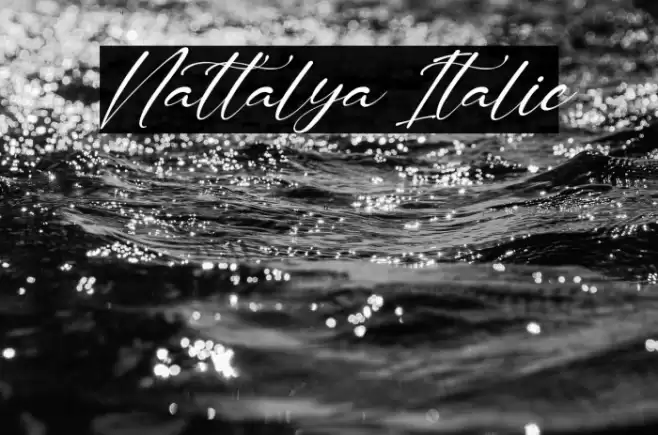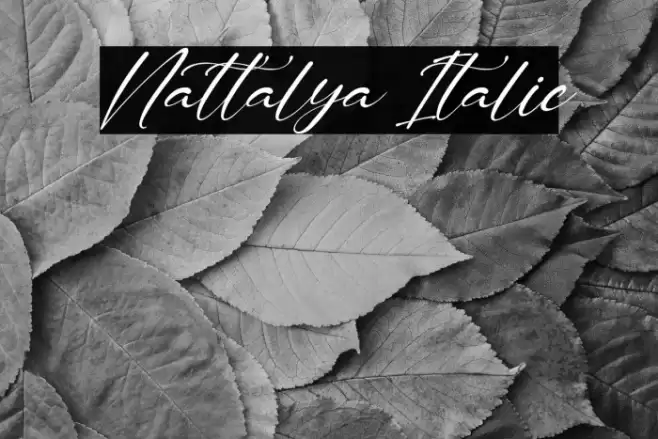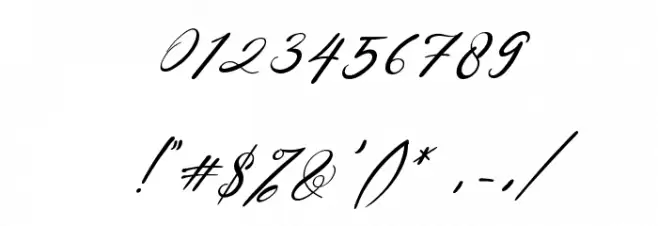
Nattalya Italic Font
Nattalya Italic Description
This elegant script font exudes a sense of sophistication and fluidity, characterized by its graceful, flowing strokes and cursive style. The letters are intricately connected, creating a seamless and harmonious appearance. The uppercase letters are particularly ornate, with sweeping lines and flourishes that add a touch of drama and elegance. The lowercase letters maintain a consistent flow, enhancing readability while preserving the font's artistic flair. The numerals and special characters are designed with the same attention to detail, ensuring a cohesive look across all elements. This font is perfect for projects that require a touch of elegance and refinement.
An elegant script font with flowing, cursive strokes and ornate details from Uncategorized fonts.
- Proposed Projects: Ideal for wedding invitations, luxury branding, elegant stationery, and artistic projects.
- Character Spacing: Tight
- Overall Style: Elegant, Artistic
- Use Case: Logos, Invitations, Decorative text